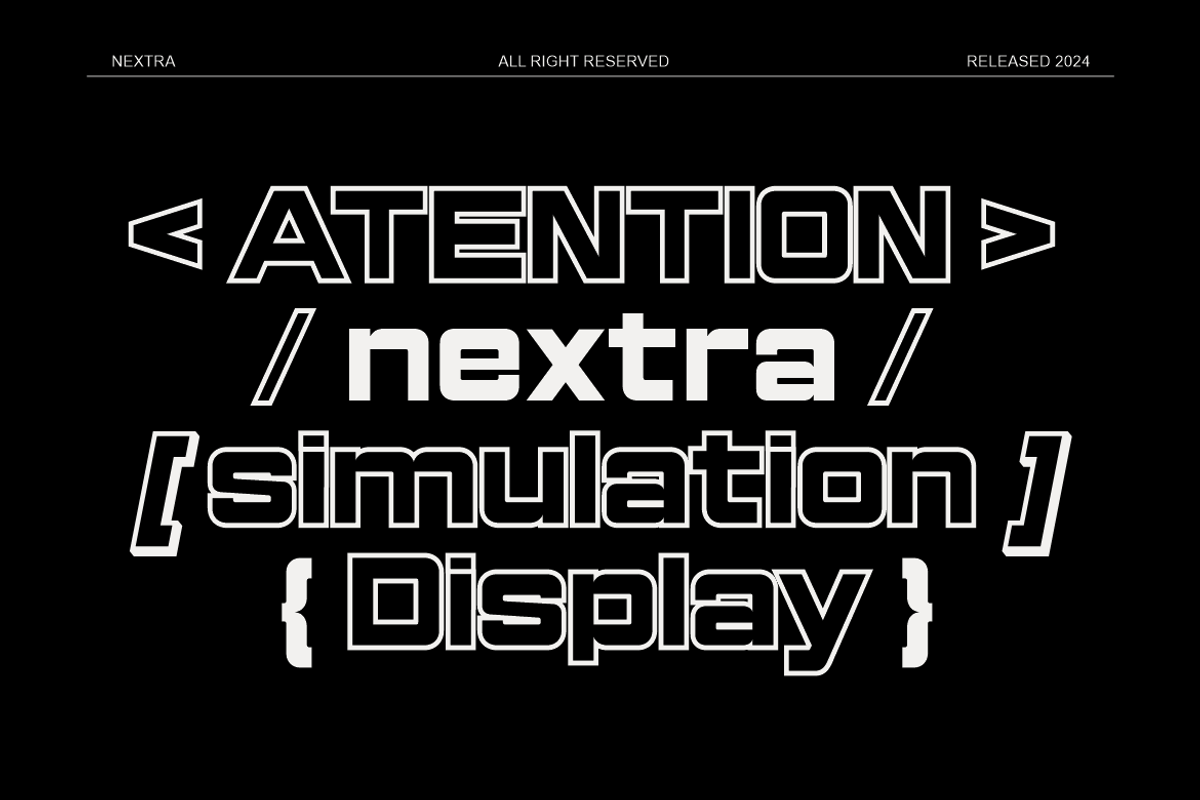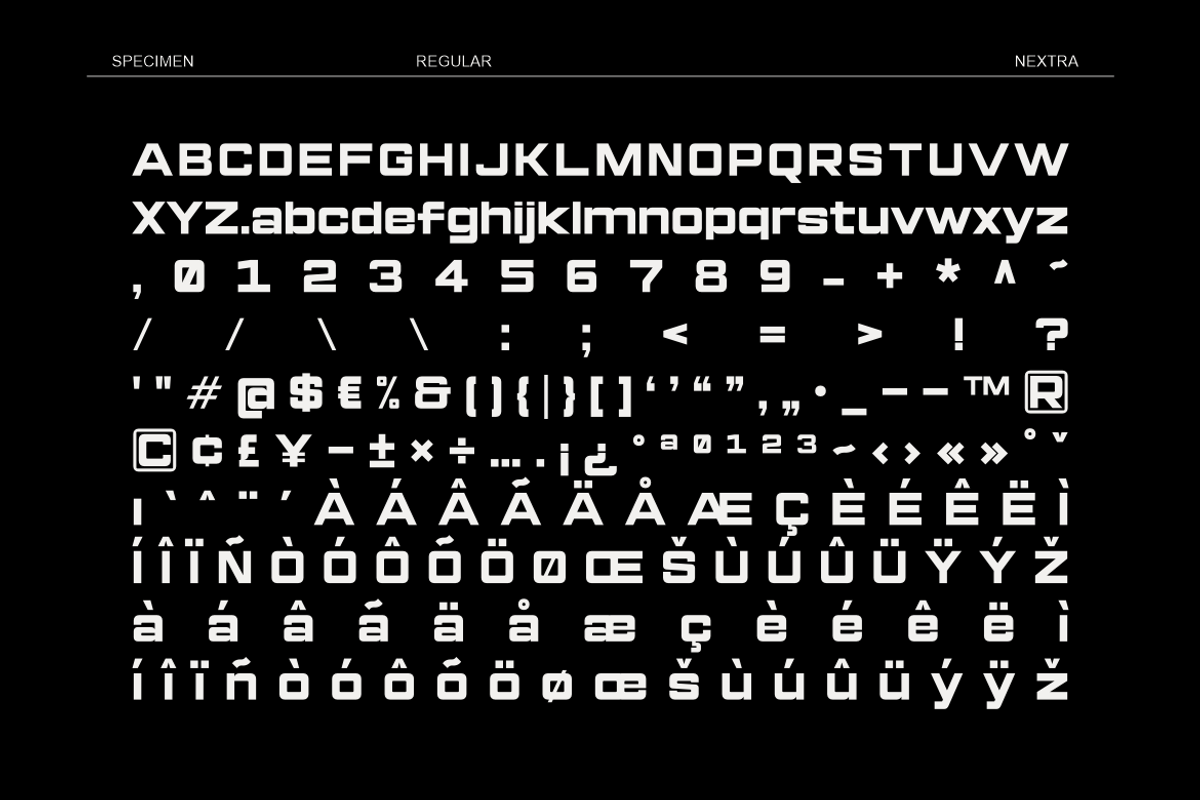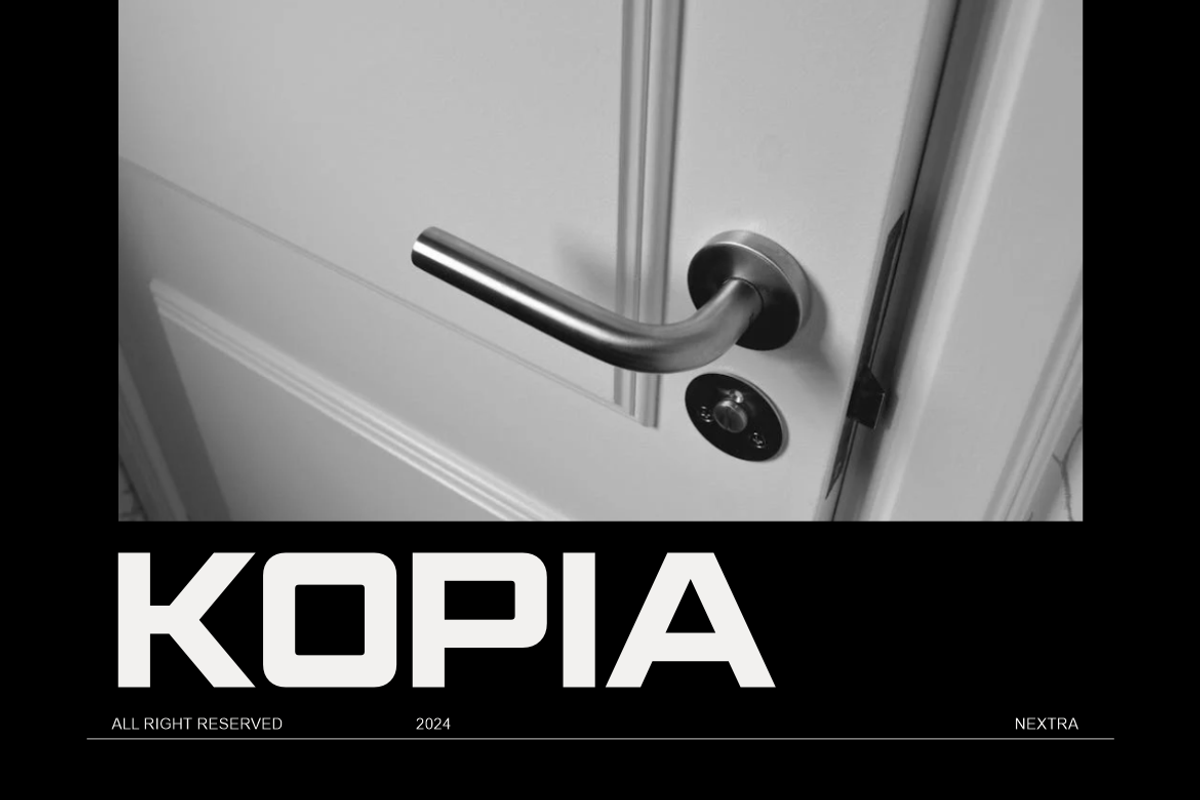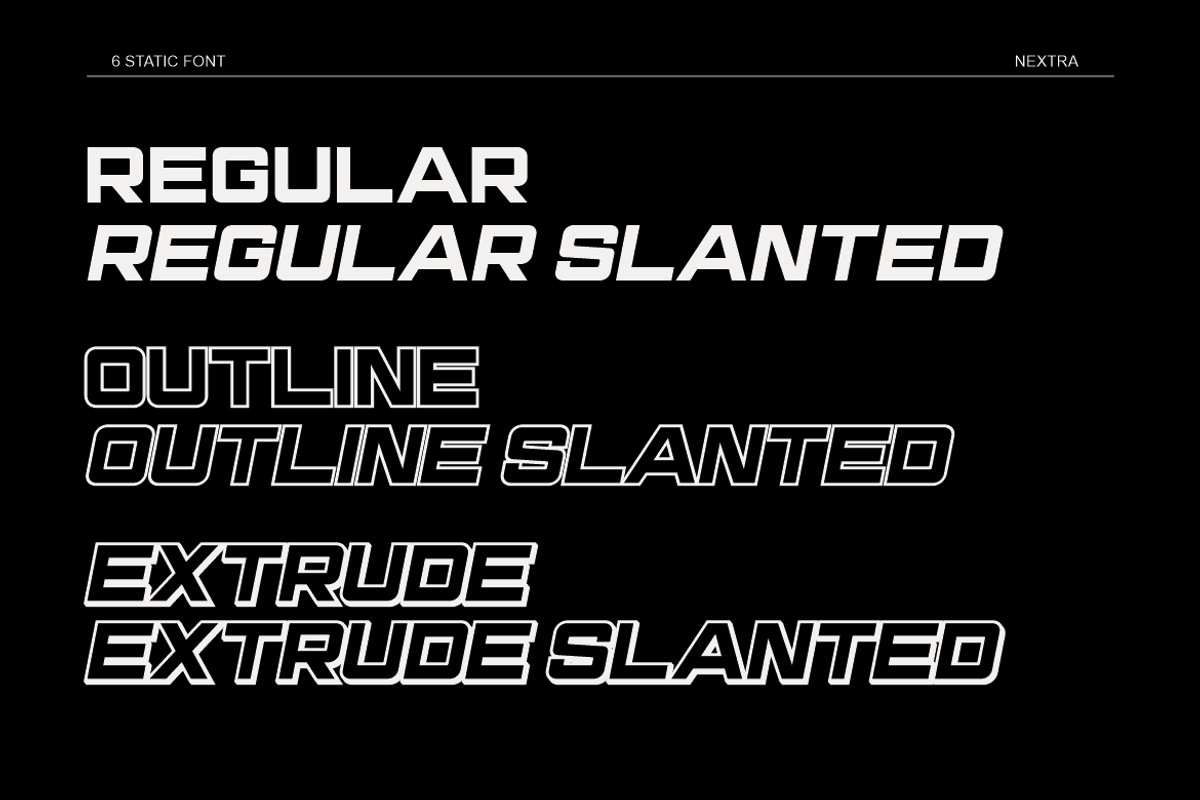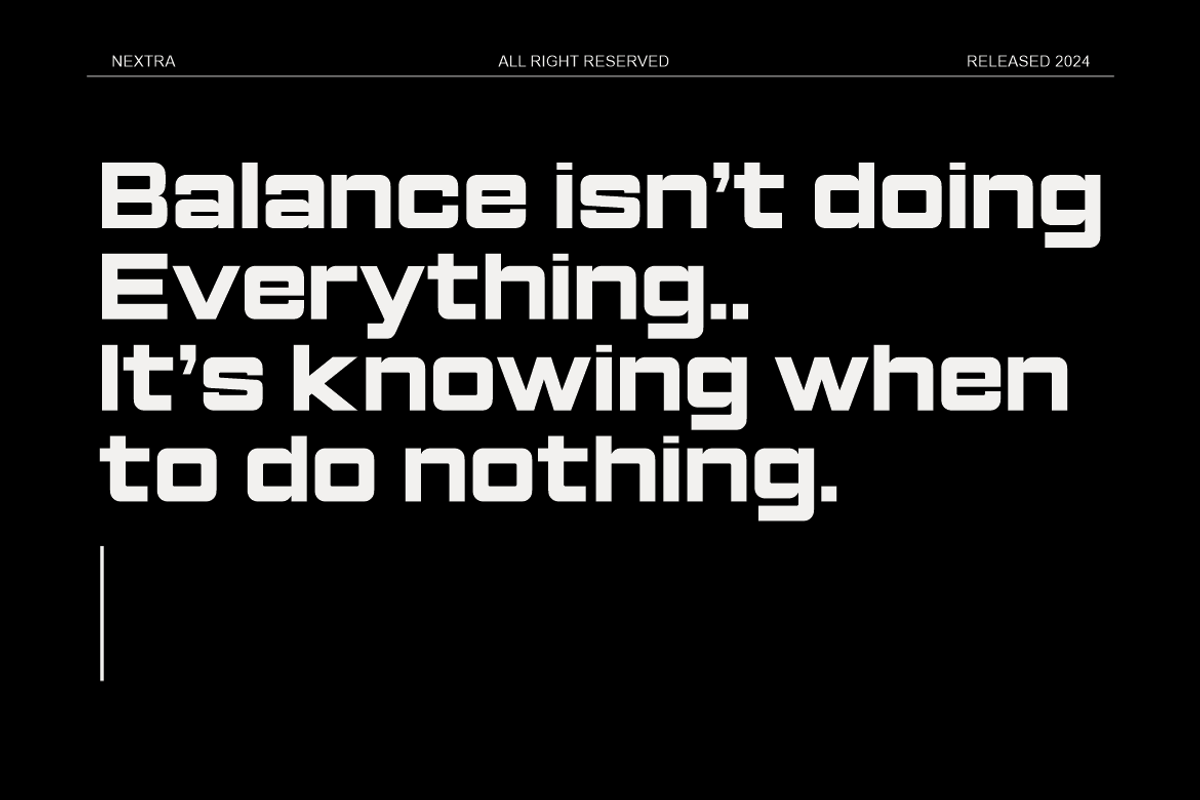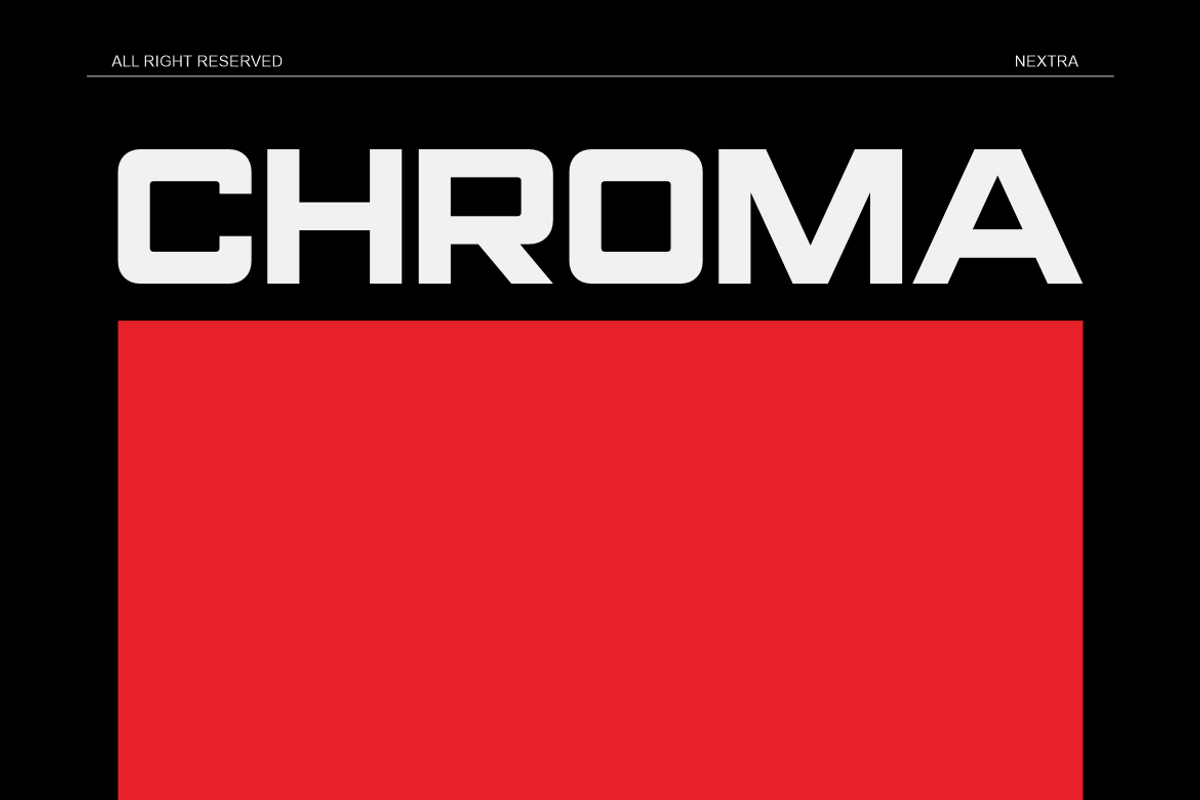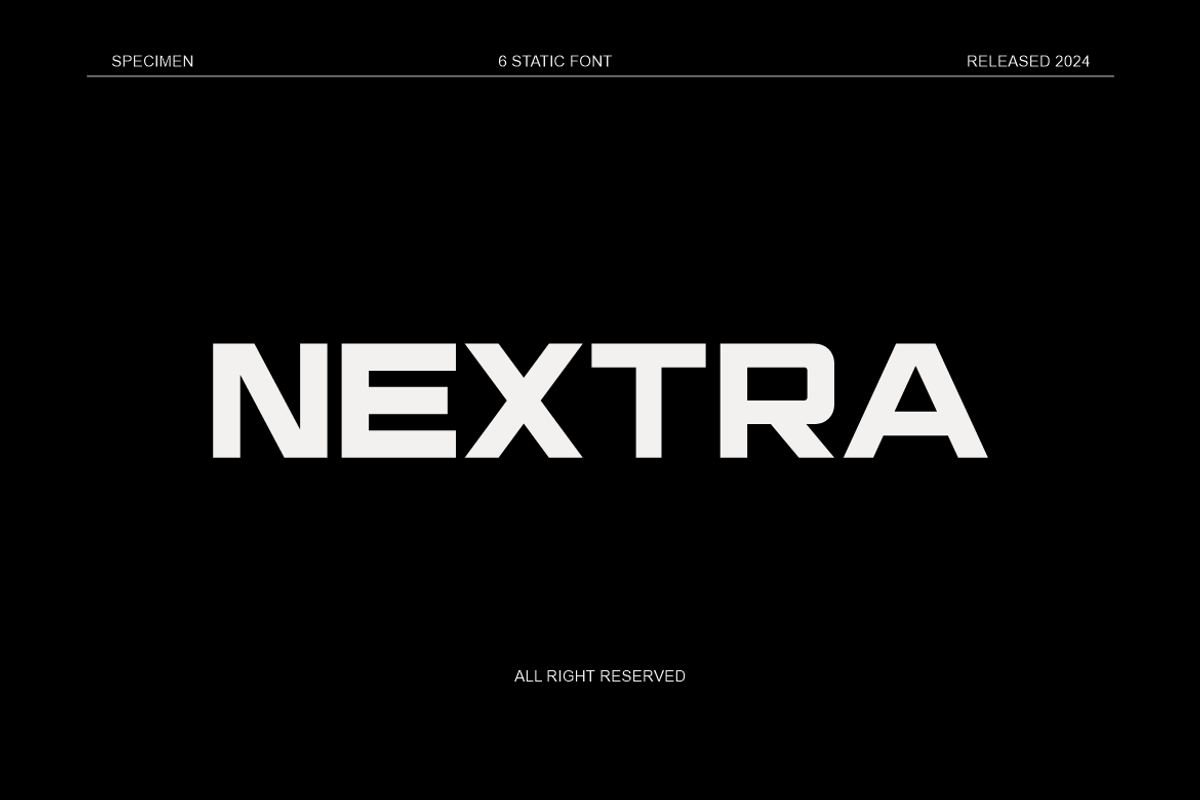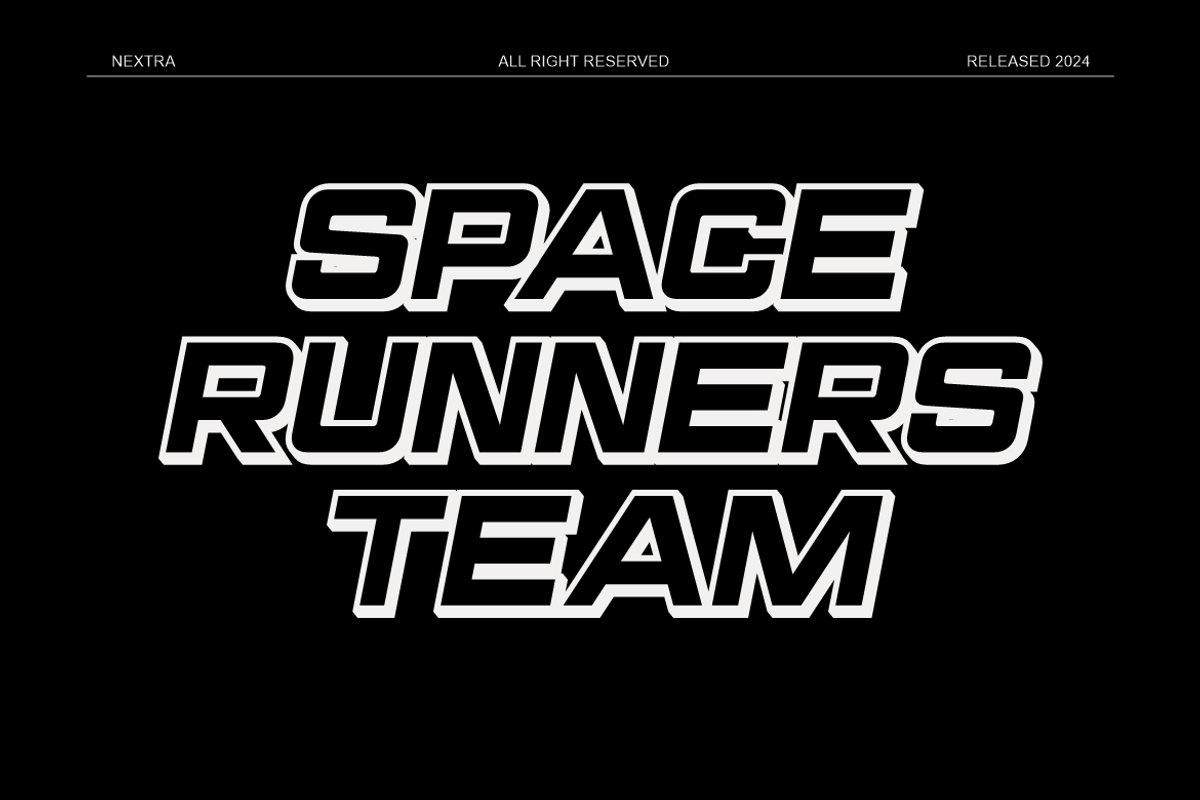
Nextra - Sports Futuristic Font
Nextra is perfect sans serif font for sports and technology projects should embody a sense of strength, agility, and modernity. With clean lines and a sleek design, this font exudes a contemporary feel that aligns perfectly with the fast-paced world of sports and the cutting-edge field of technology. Its versatility allows it to be used for various applications, from sports team logos and tech company branding to sleek interface designs and dynamic marketing materials. Whether you're looking to convey a sense of speed and power for a sports event or a sleek and innovative look for a technological product, this sans serif font is the ideal choice to capture the essence of both industries seamlessly.